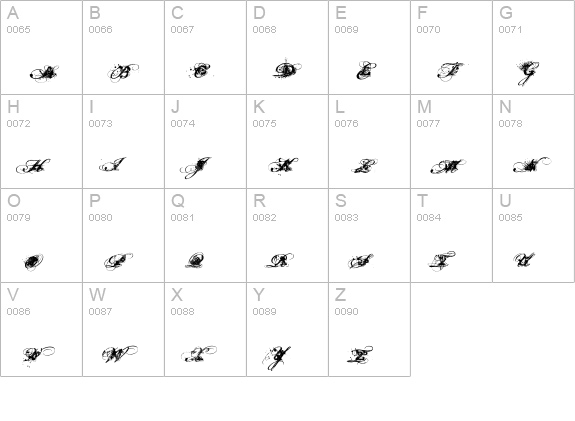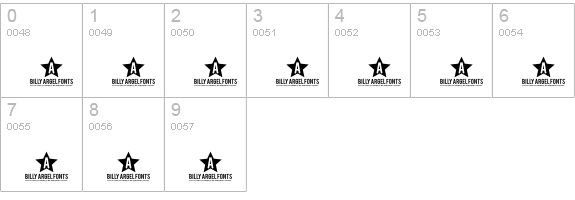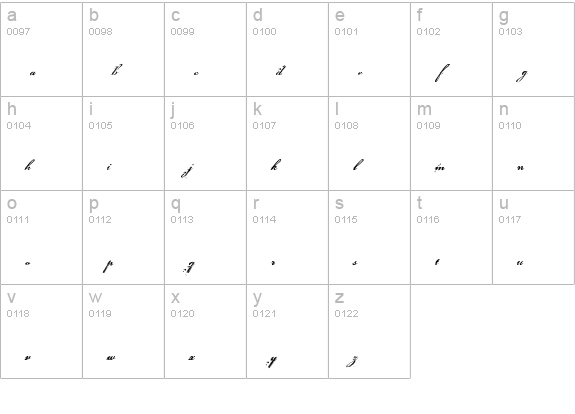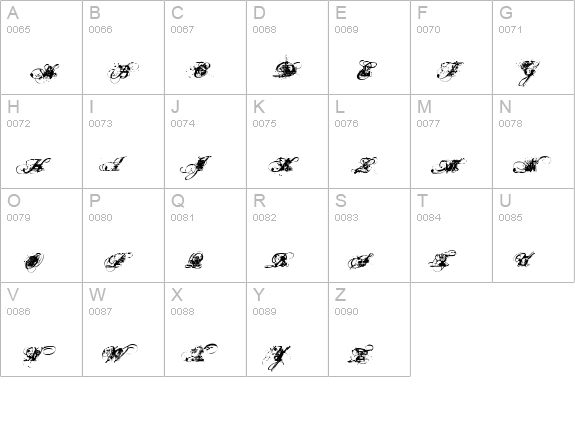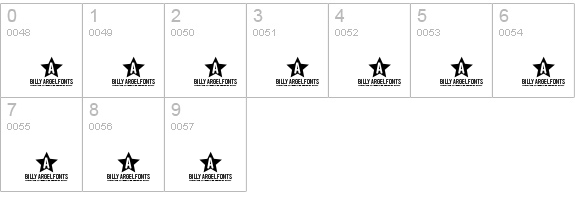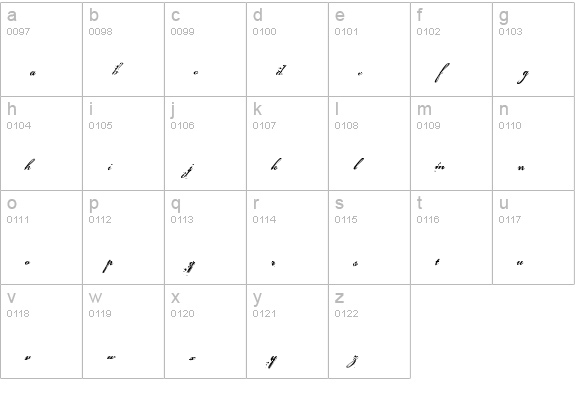
Dirty and Classic Font Details
Dirty and Classic font is a perfect blend of grunge and elegance. With its rough edges and vintage charm, this font adds a touch of nostalgia to any design project. The bold and distressed letterforms exude a sense of rawness and authenticity, making it ideal for creating eye-catching headlines, posters, and logos. This font is not only visually appealing but also completely free to use. That's right, you can download it for free at FontsMarket.com. Whether you are a professional designer or a hobbyist, this font is a must-have in your collection. Its versatility allows it to be used in various contexts, from retro-themed designs to modern and edgy creations. The Dirty and Classic font is designed with great attention to detail, ensuring that each character has its own unique personality. Its uneven strokes and faded appearance give it a handcrafted look, adding a touch of artistry to your designs. This font is perfect for projects that require a vintage or grunge aesthetic, such as album covers, movie posters, and apparel designs. Downloading Dirty and Classic font from FontsMarket.com is quick and easy. Simply visit the website, search for the font, and click on the download button. Once downloaded, you can start using it right away in your favorite design software. Don't miss out on the opportunity to enhance your designs with this incredible font. Download Dirty and Classic font for free at FontsMarket.com and let your creativity soar.